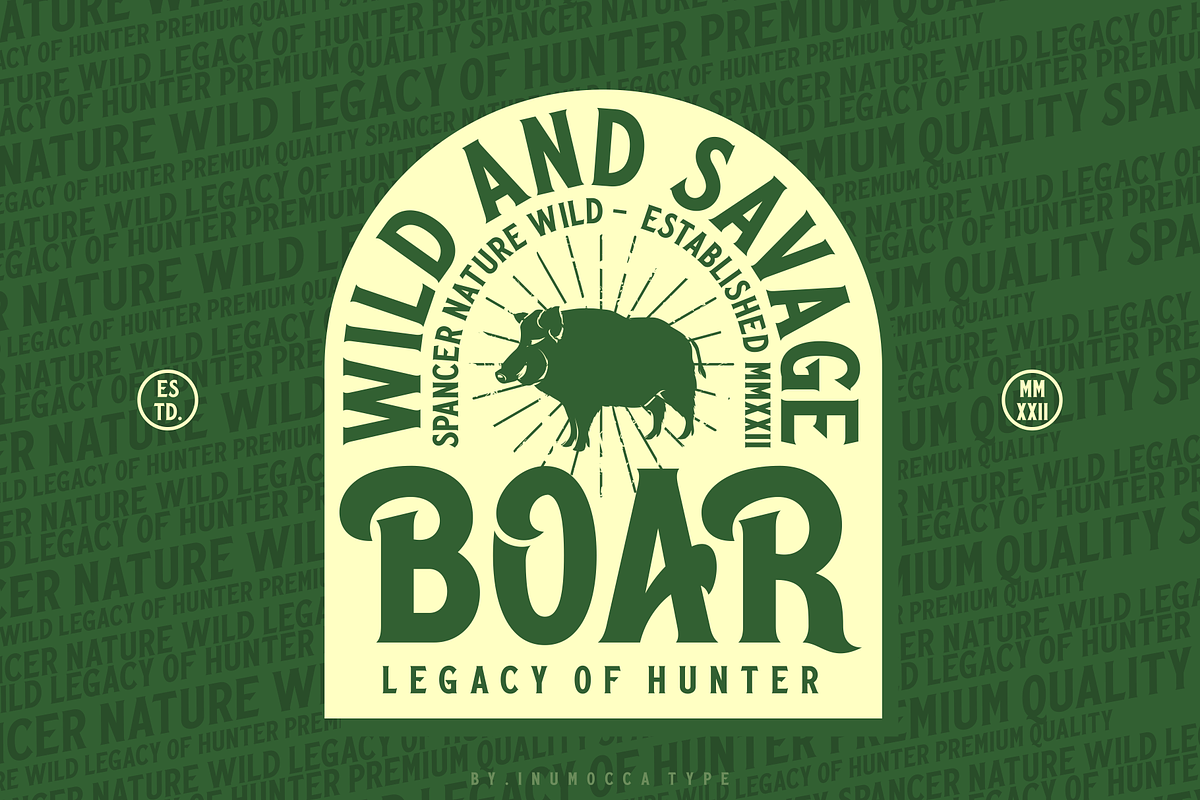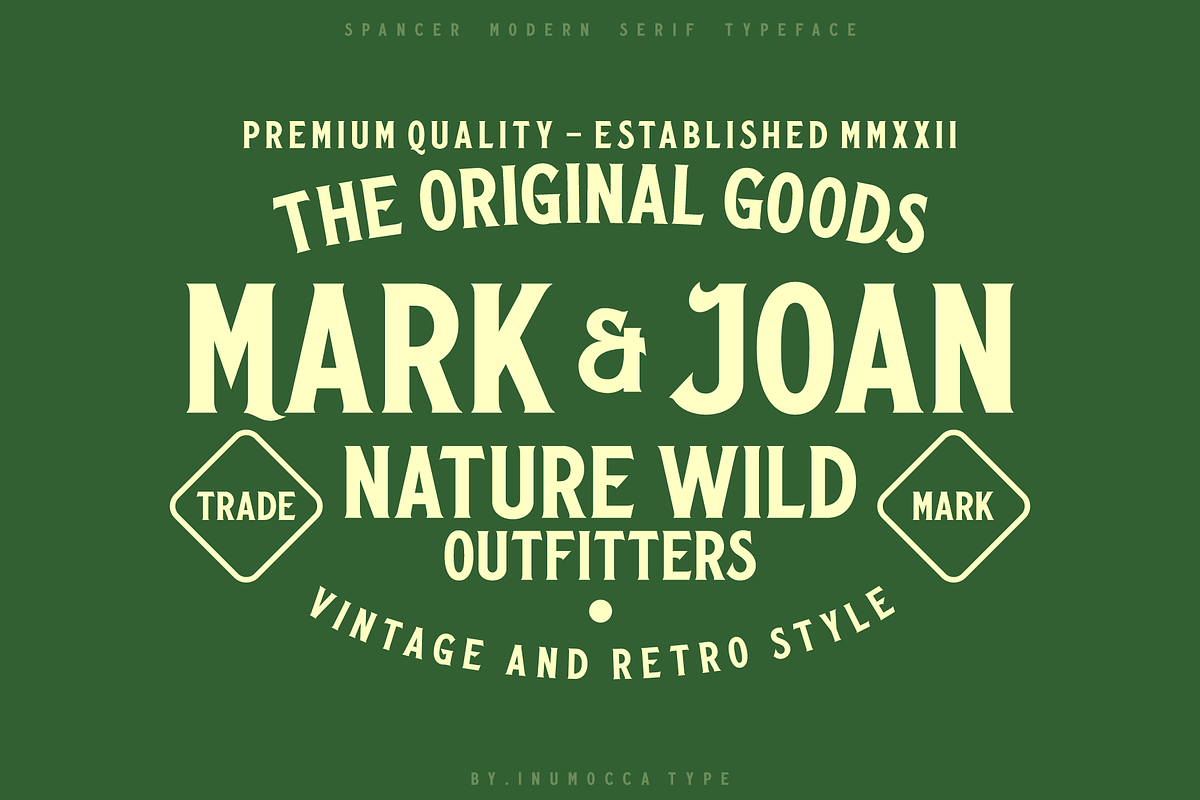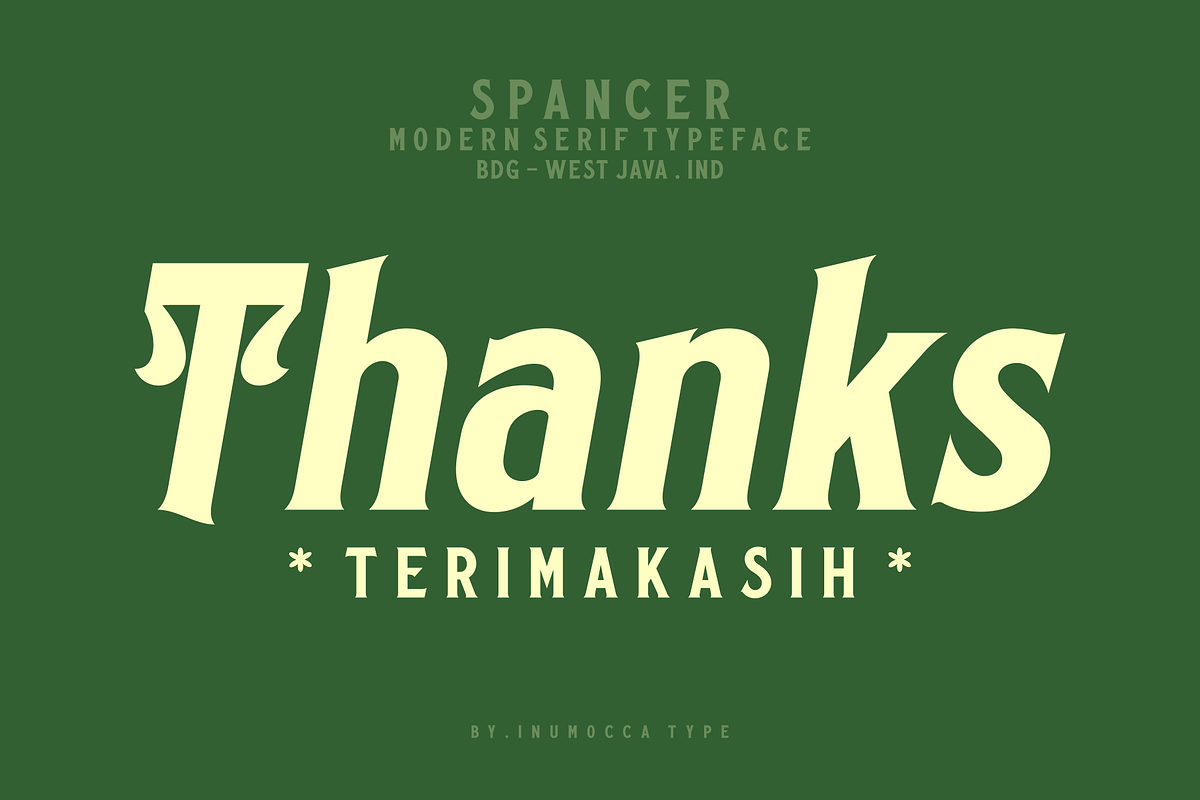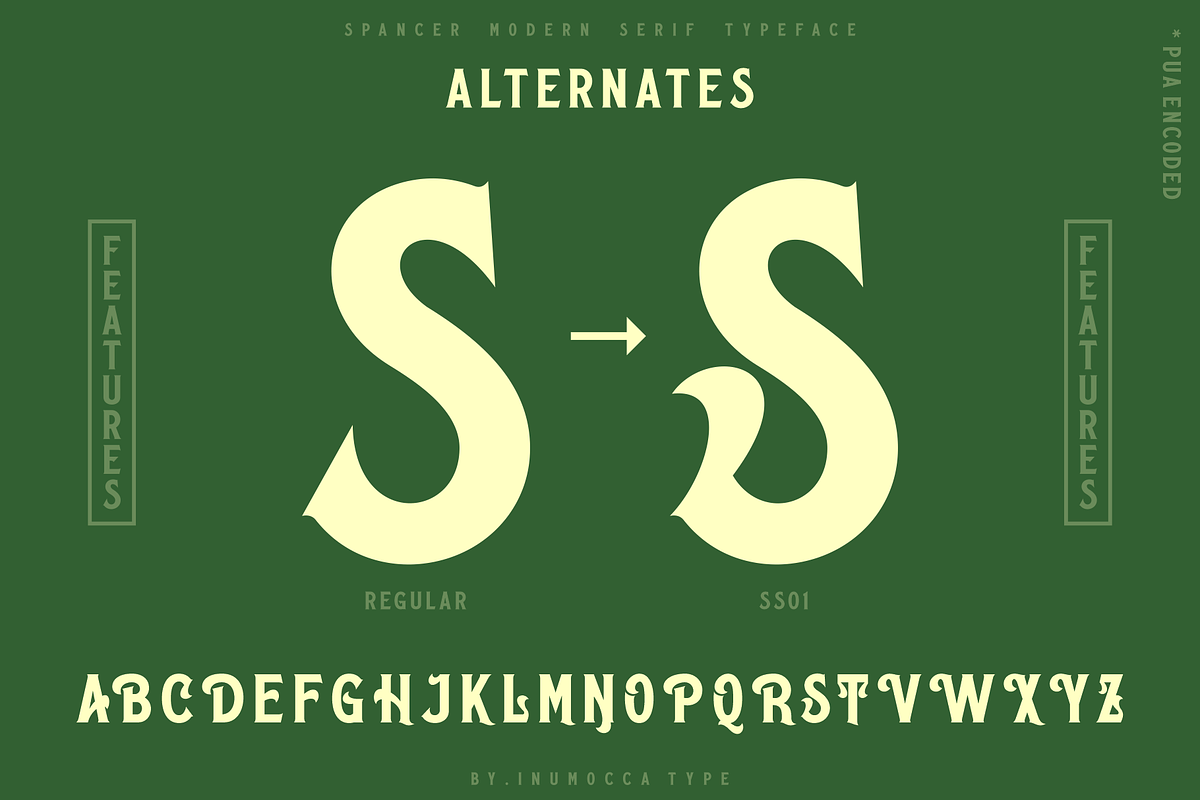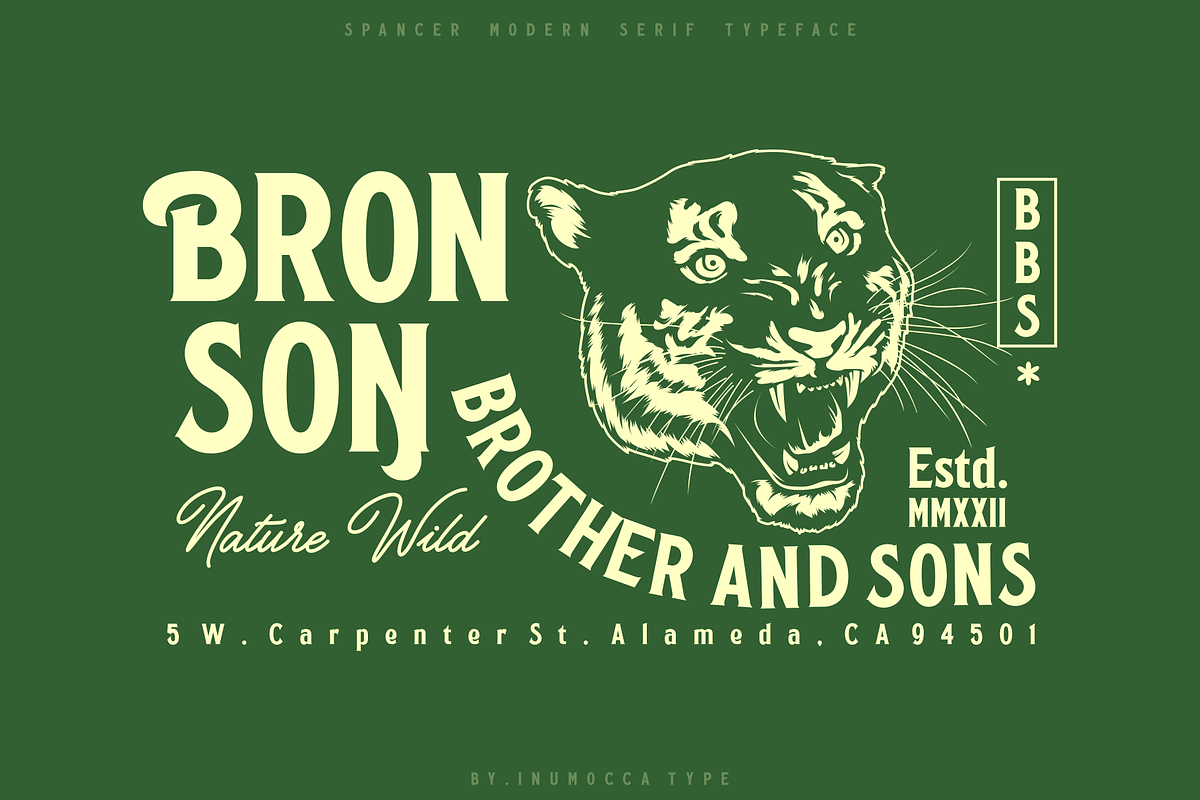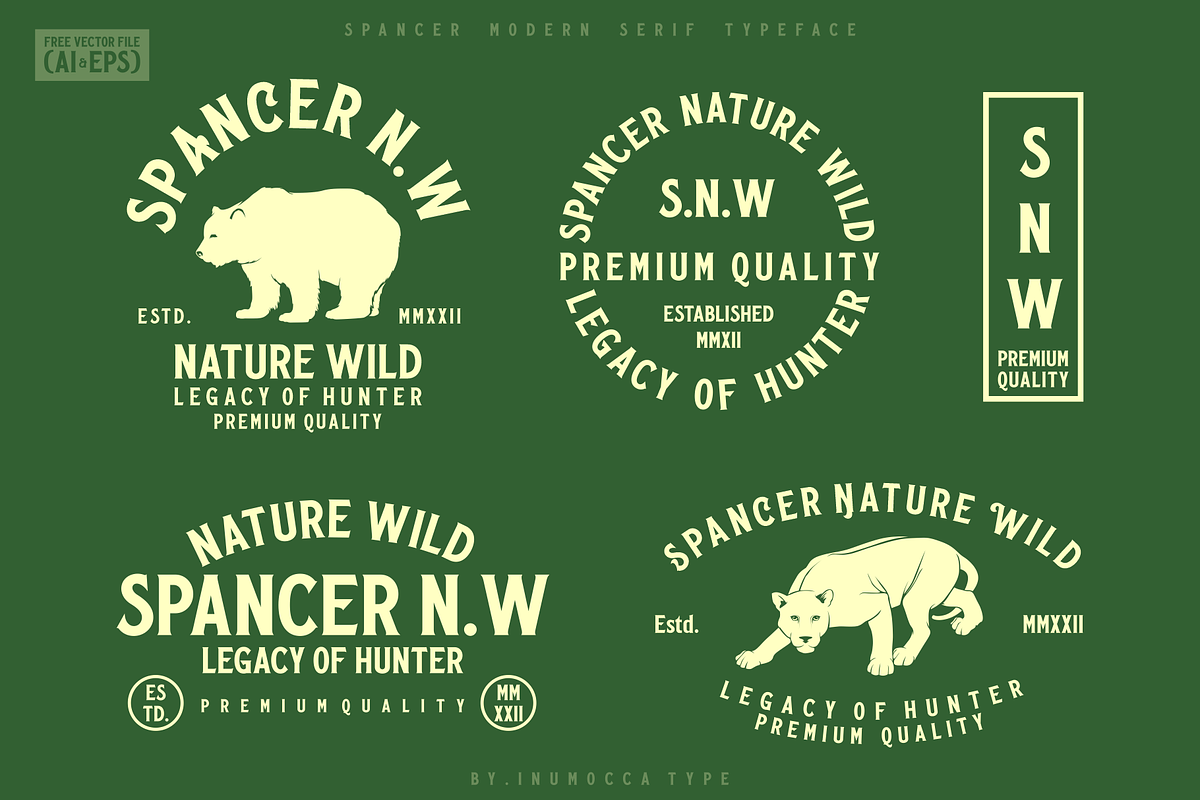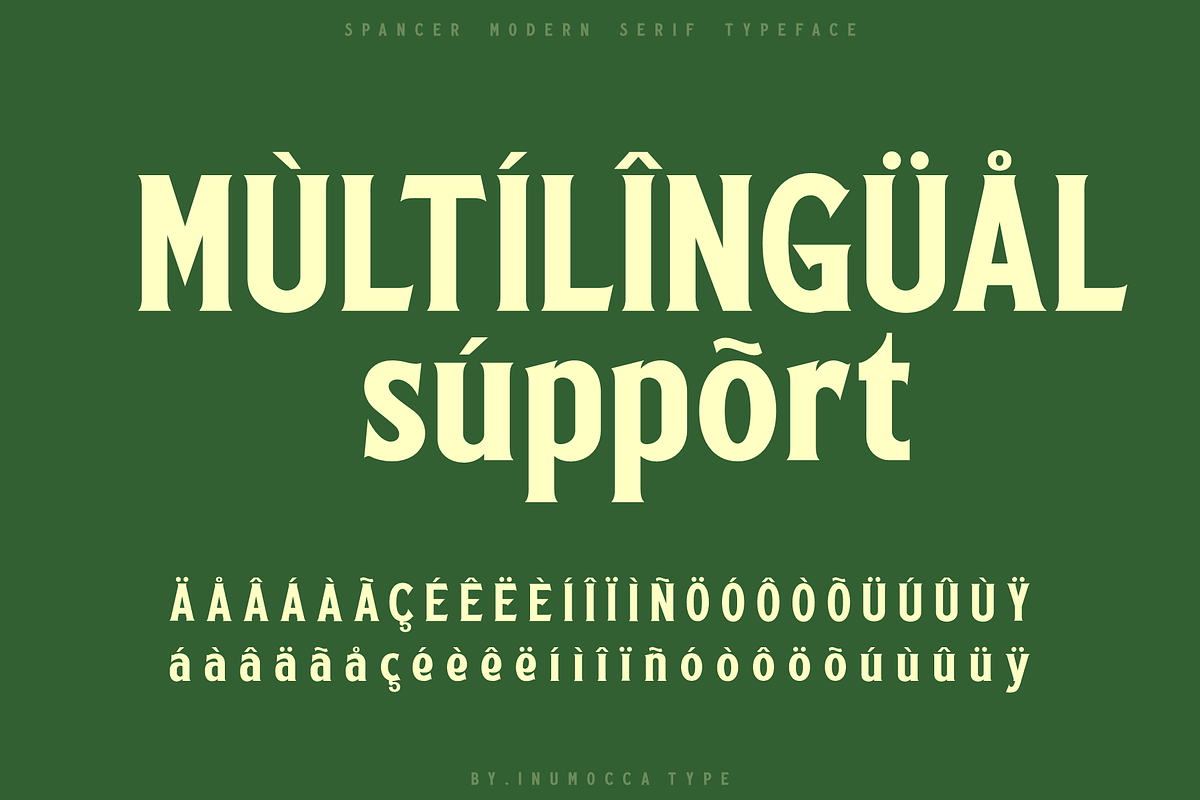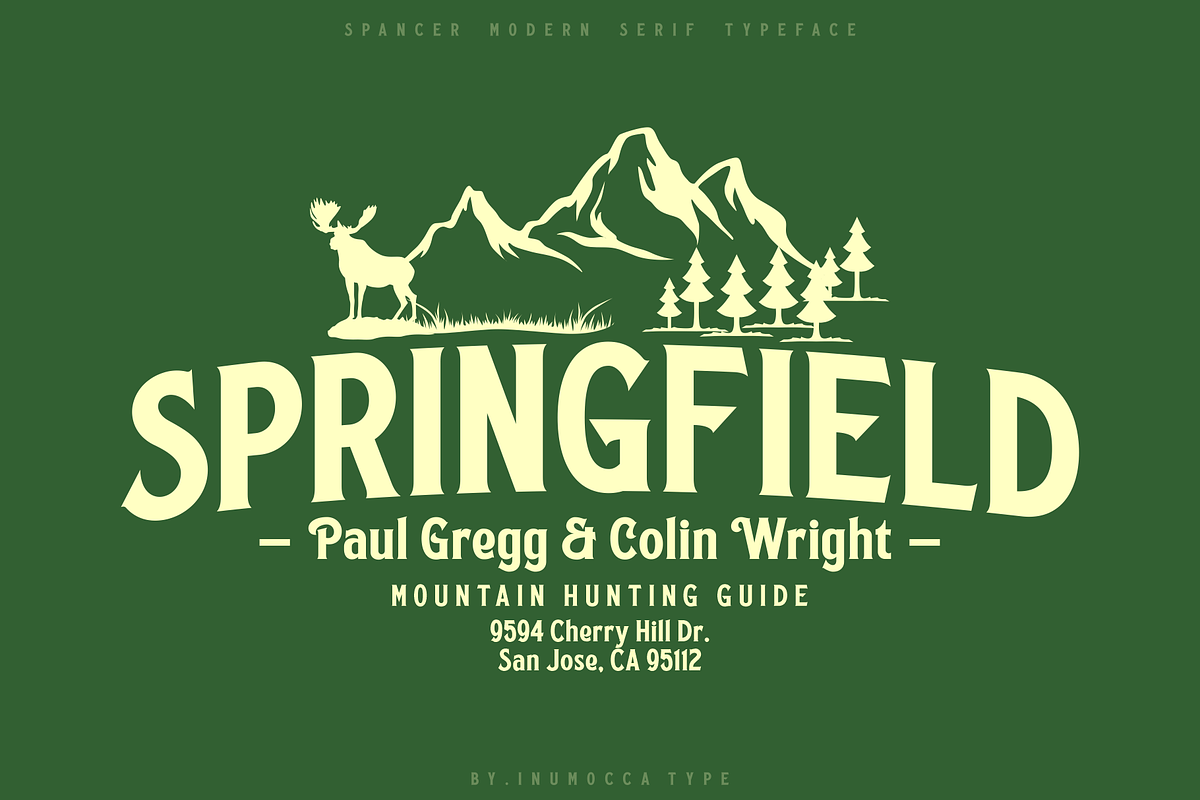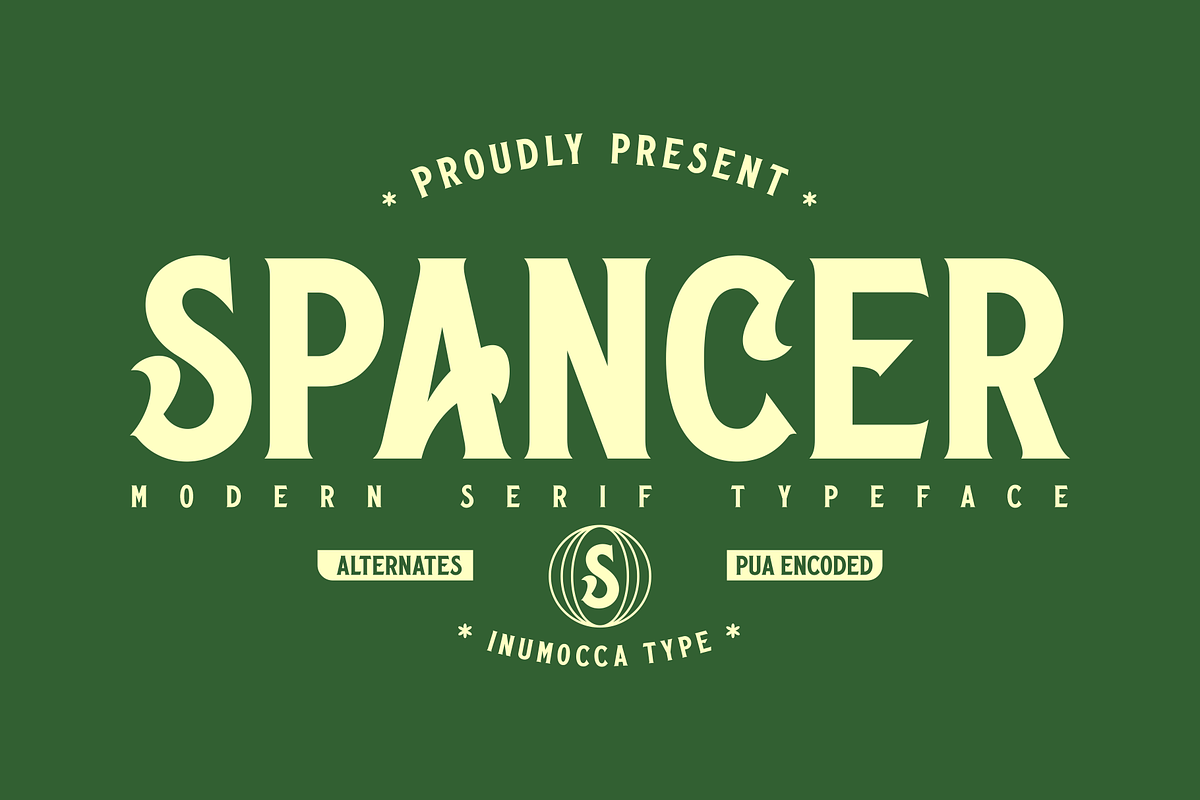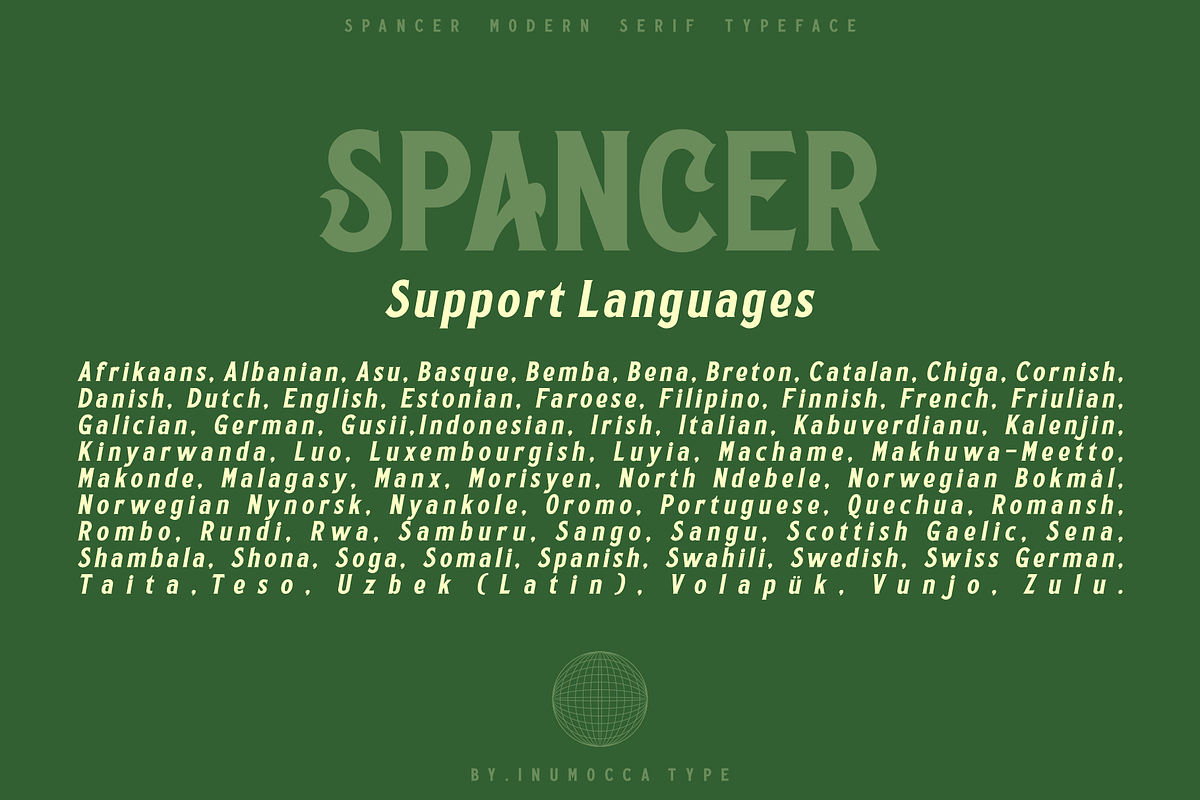
Spancer + BONUS
Spancer Modern Serif Typeface , simple and powerfull. come with some simple Alternates for covering your Project, like Branding, Movie Title, Headline Letter, Bookcover or Book Content, Magazine cover, Poster, Quotes Lettering, Logos, and more your project design.
- Unique glyphs
- Multilingual Characters
- UPPERCASE
- Numeric
- Symbol
- Punctuation Character